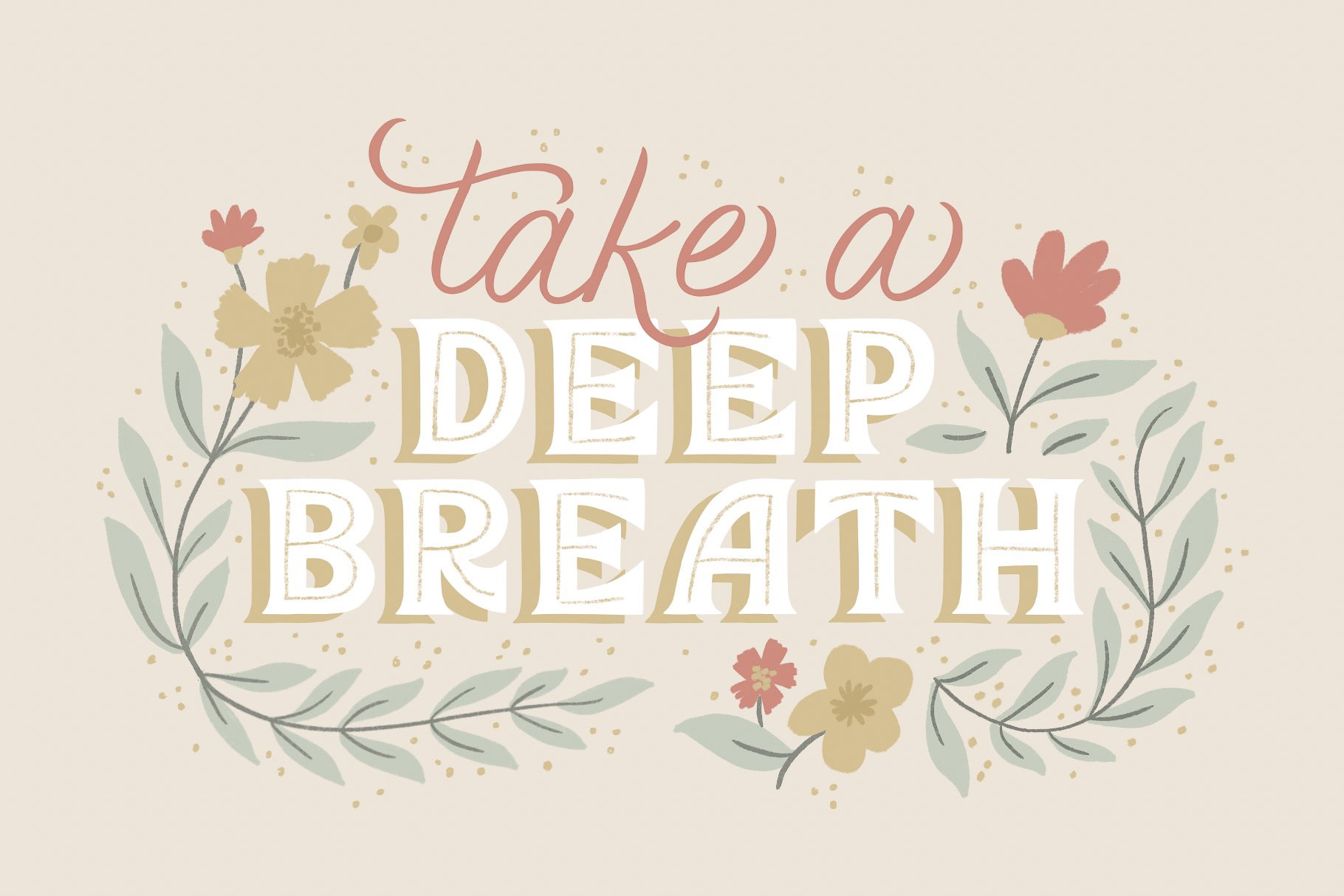
Take a Deep Breath - Herb Garden Font Trio
An organic and playful font trio! These fonts are hand-drawn to convey a friendly feel while also including tons of alternatives to fit every project's needs. Each font is inspired by hand-lettering art and each character includes natural imperfections to bring out that handmade look.